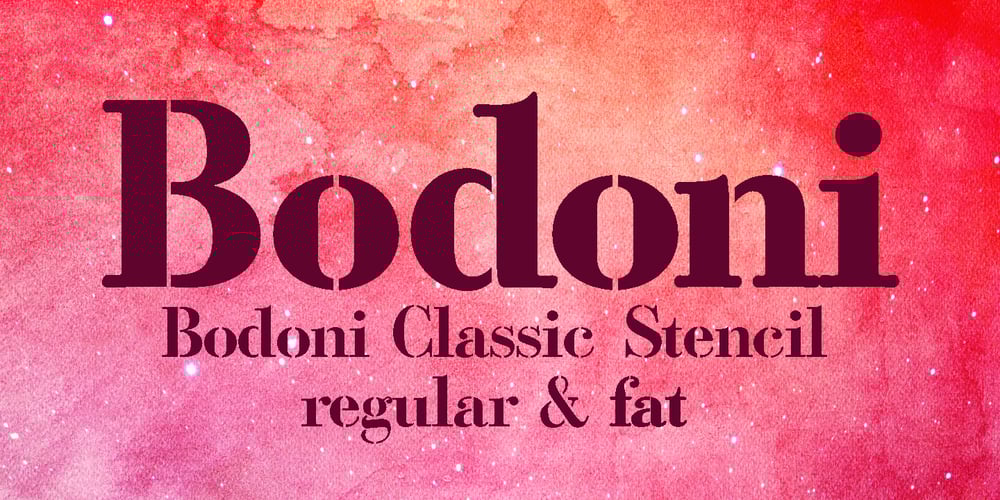
Bodoni Classic Stencil Font Family was designed by Gert Wiescher and published by Wiescher Design. Bodoni Classic Stencil contains 2 styles and family package options. Bodoni Classic Stencil is another of my personal additions to the Bodoni Classic Family that Giambattista would have never made. In his days people had enough skill and the neccessary time to put beautiful handlettering on parcels and cases. No need for stencils! Today we do not need them either since shipping has gone barcode crazy, but for some reason stencil-letters are very much in fashion. Bodoni letters lend themselves perfectly to be stenciled so I just did the whole alphabet; not just the capitals. Yours, Gert Wiescher